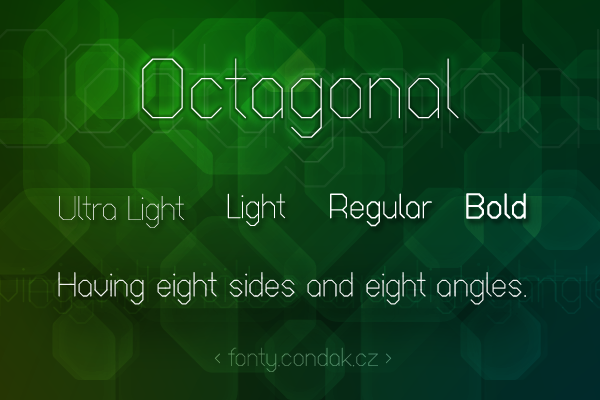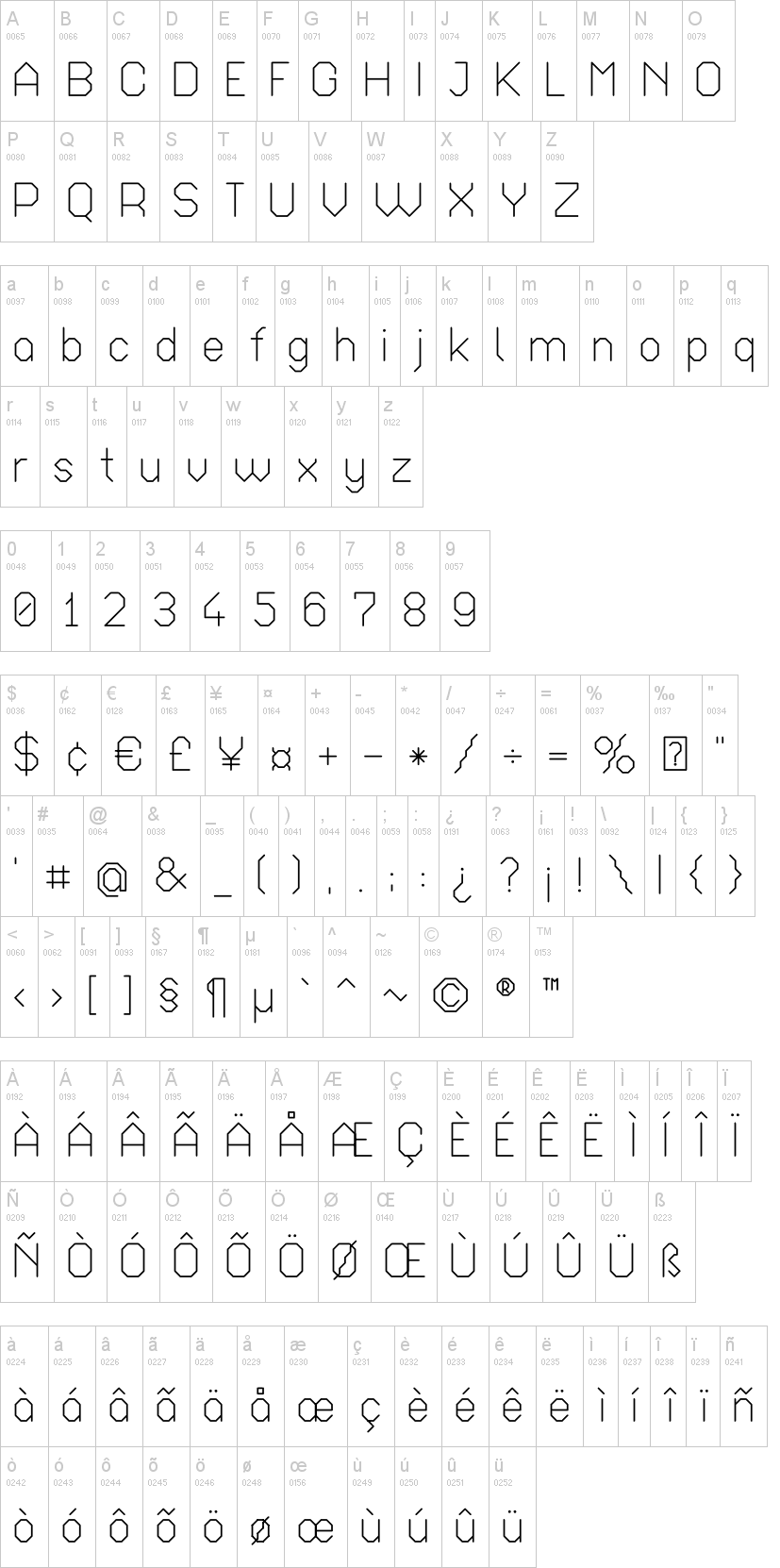
octal-017.ttfoctar-017.ttfoctab-017.ttfNote of the authorSimple font based on octagonal shape. Its design was inspired by old plotters and Logo language creations that both used mostly simple shapes.
My favourite version for web headlines is Light. Lines of Ultra Light version are probably too thin to be readable on screen but it looks nice in the print. =) The other two versions are intended for small font sizes.